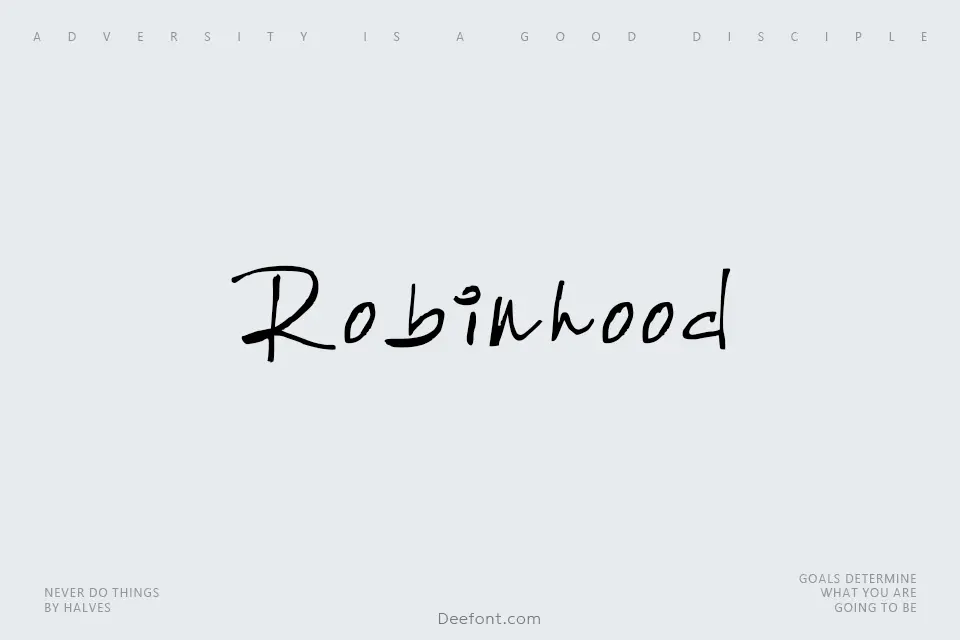
Robinhood Font
Robinhood is a distinctive handwritten script font that captures the casual elegance of pen-drawn letterforms with organic, flowing strokes. This typeface features a relaxed, contemporary script style with varied baseline and rhythmic letter spacing, creating an authentic hand-lettered aesthetic. Ideal for creative posters, event invitations, greeting cards, artistic covers, and decorative display projects, Robinhood brings warmth and personality to any design. The font’s approachable nature makes it particularly suitable for projects targeting creative professionals, artists, and crafters seeking authentic, human-touched typography for visual storytelling and editorial design.
Designed by:Robin Phelps-Ward